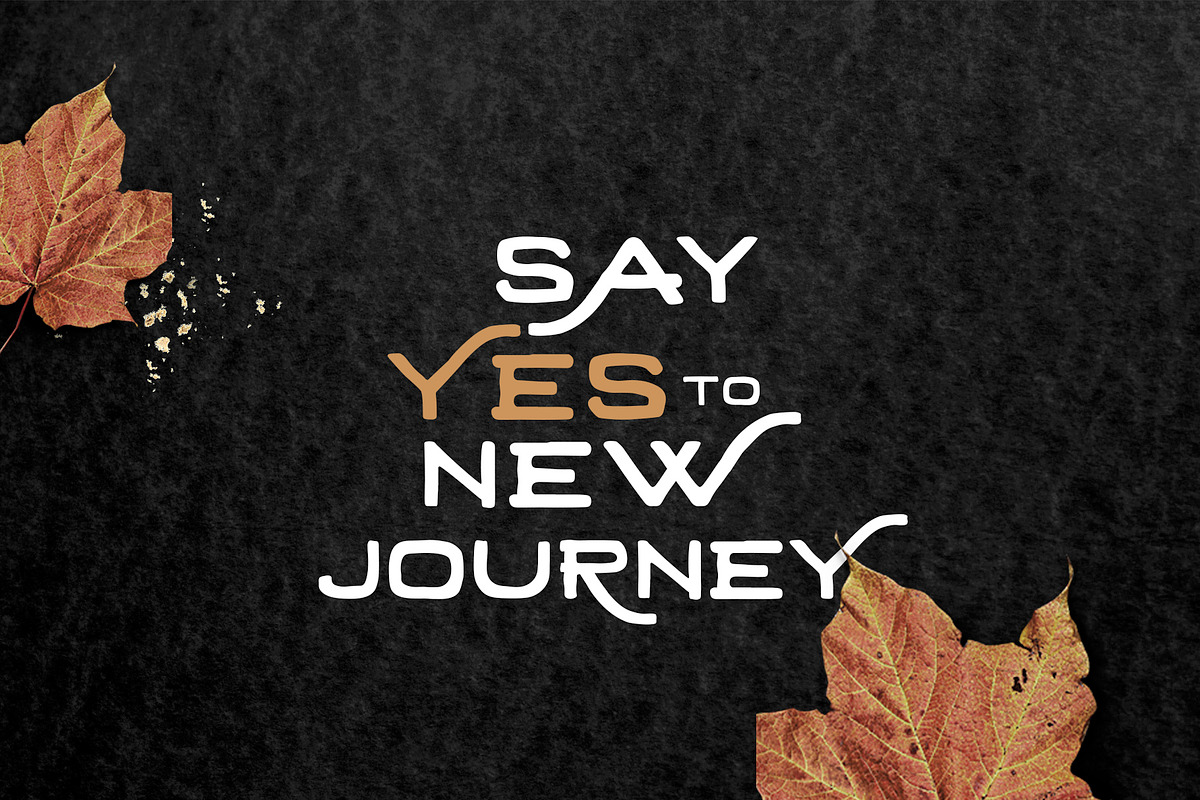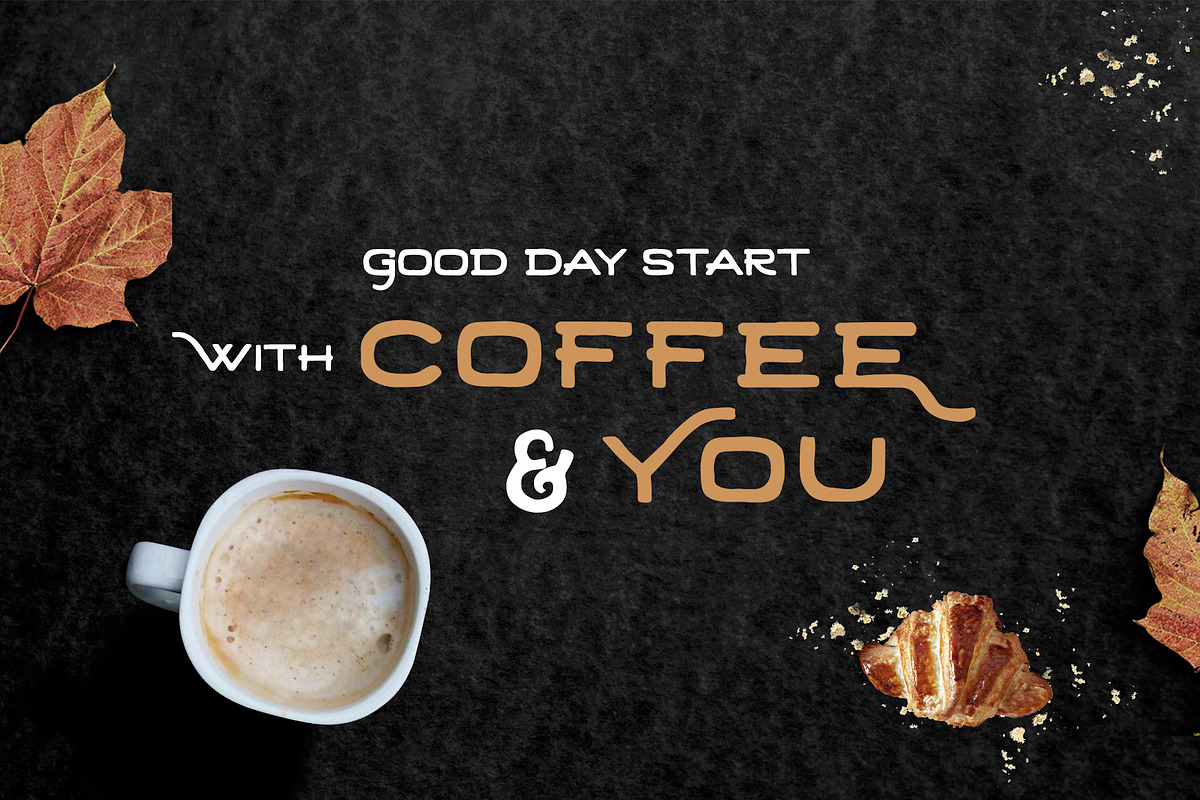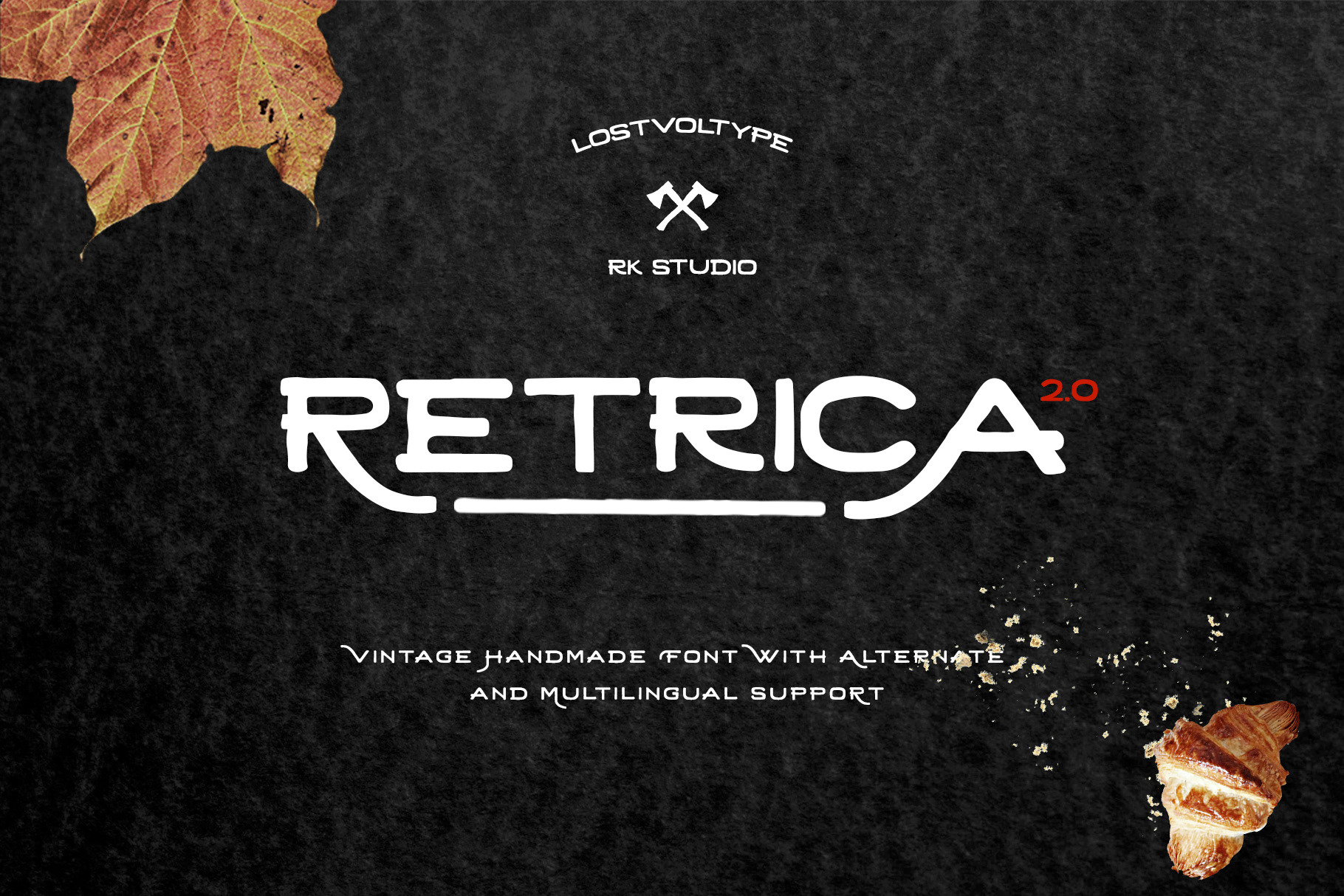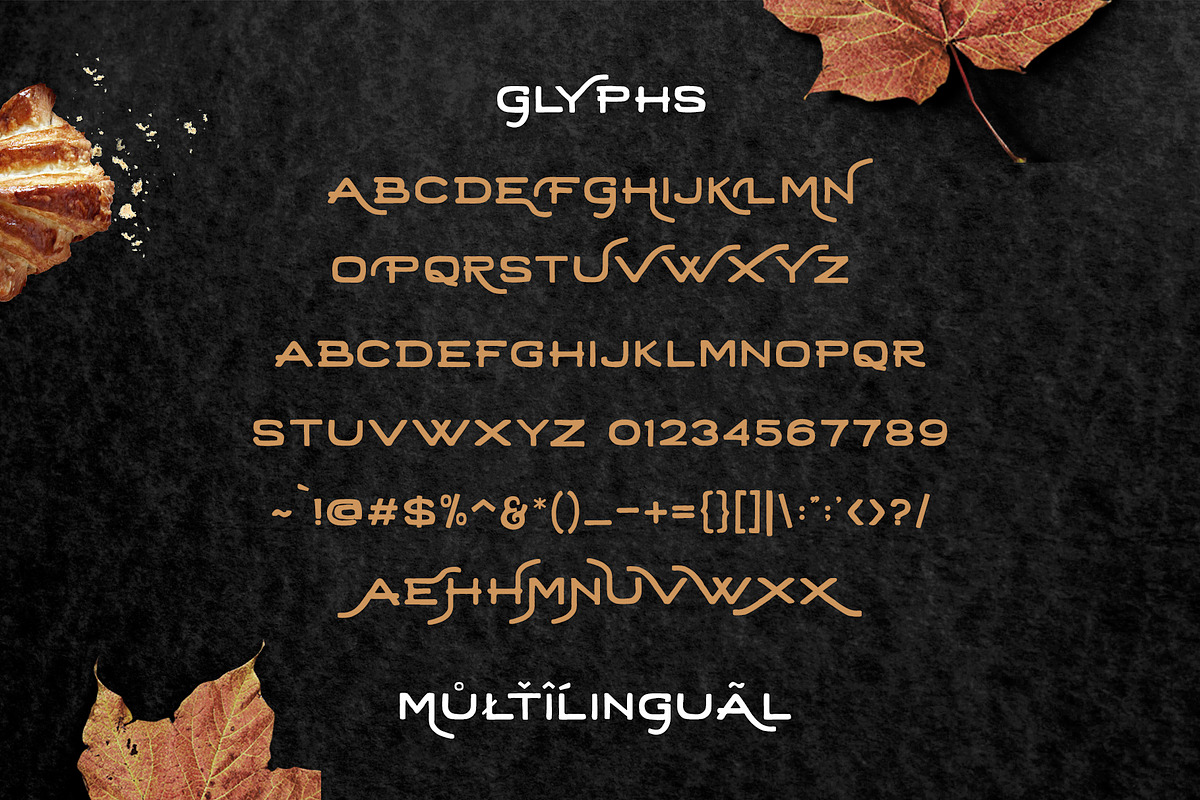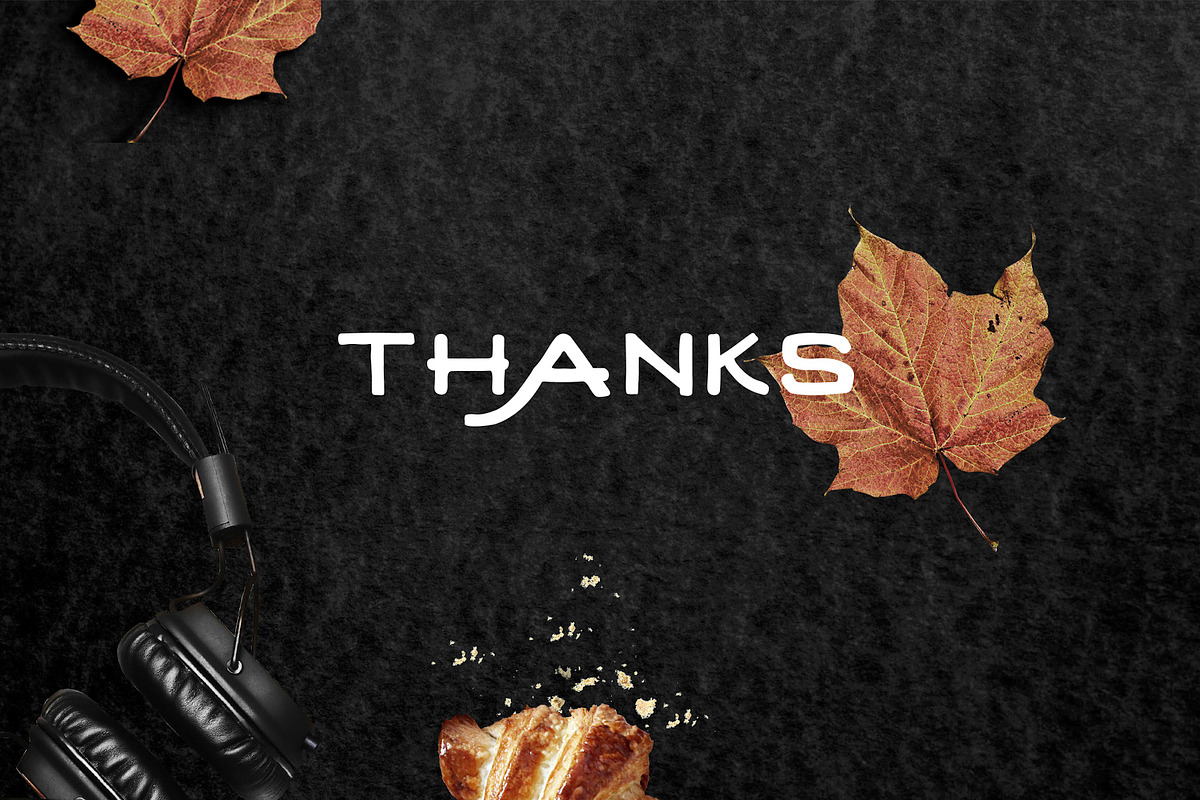
Retrica 2.0 + Webfont
Retrica, a new handmade vintage typeface, simple, elegant and more handrawn taste. was completely with some alternate characters.
In this version you'll get complete characters and multingual support. And as my other font, alternate character is included in this package. Webfont Available.